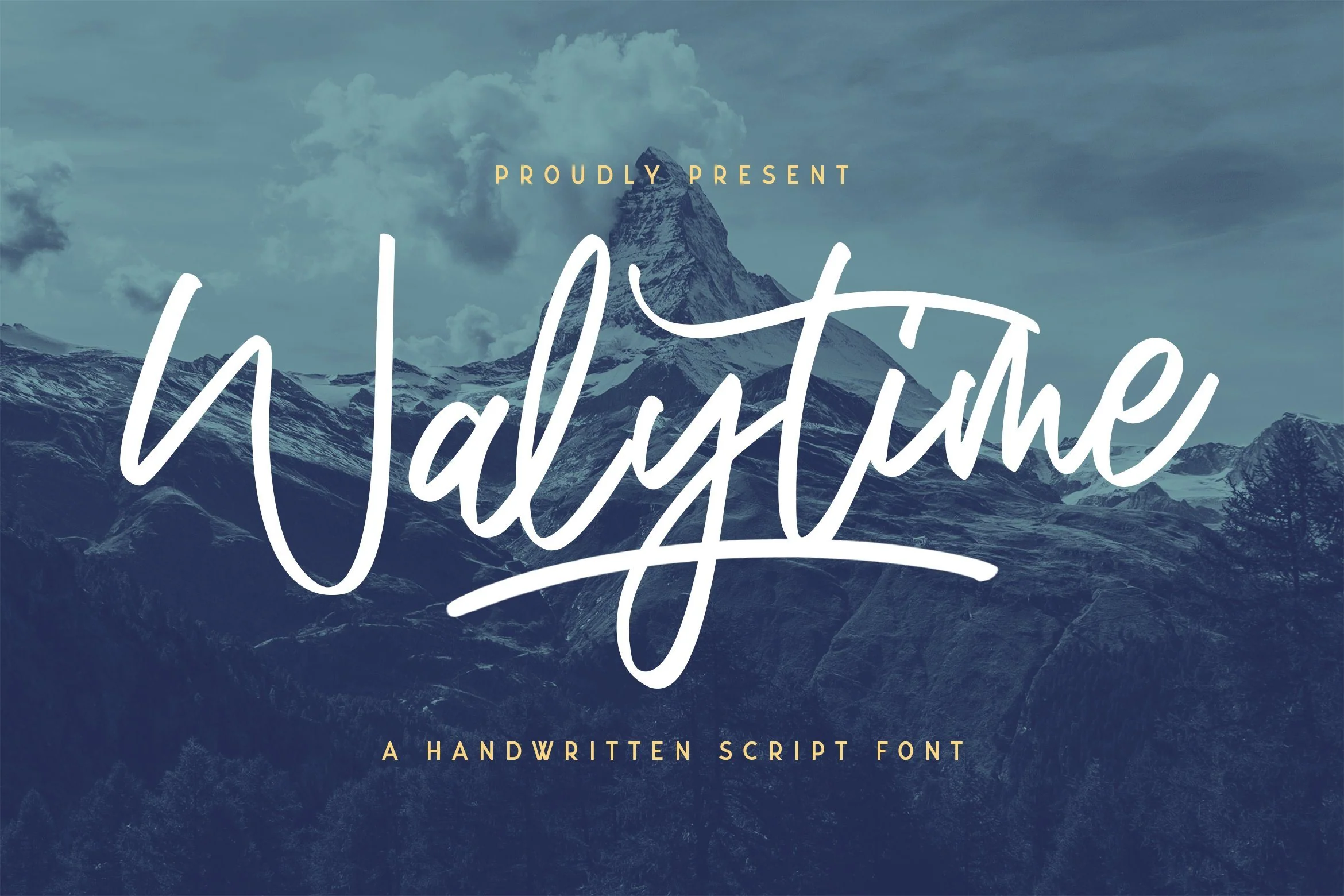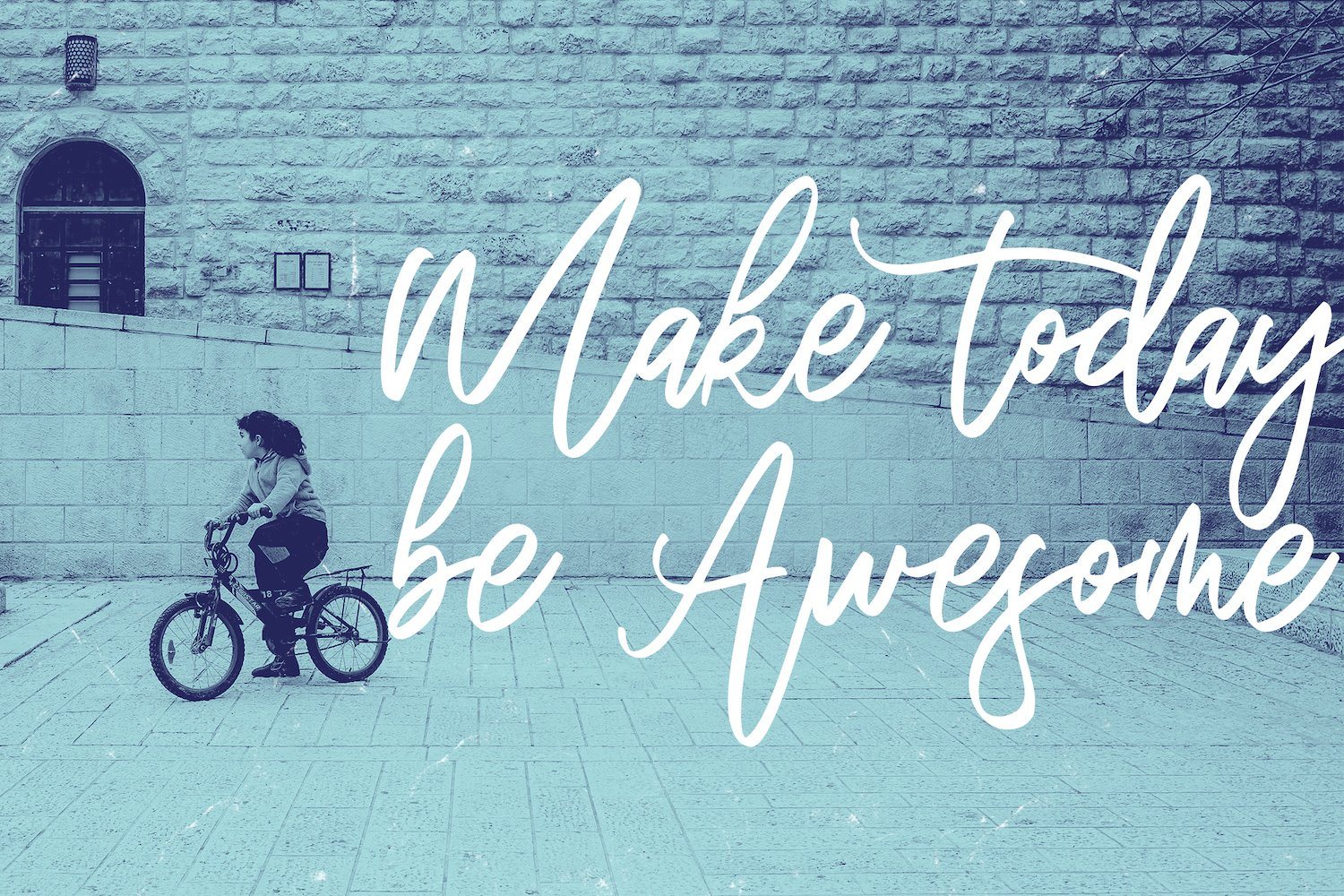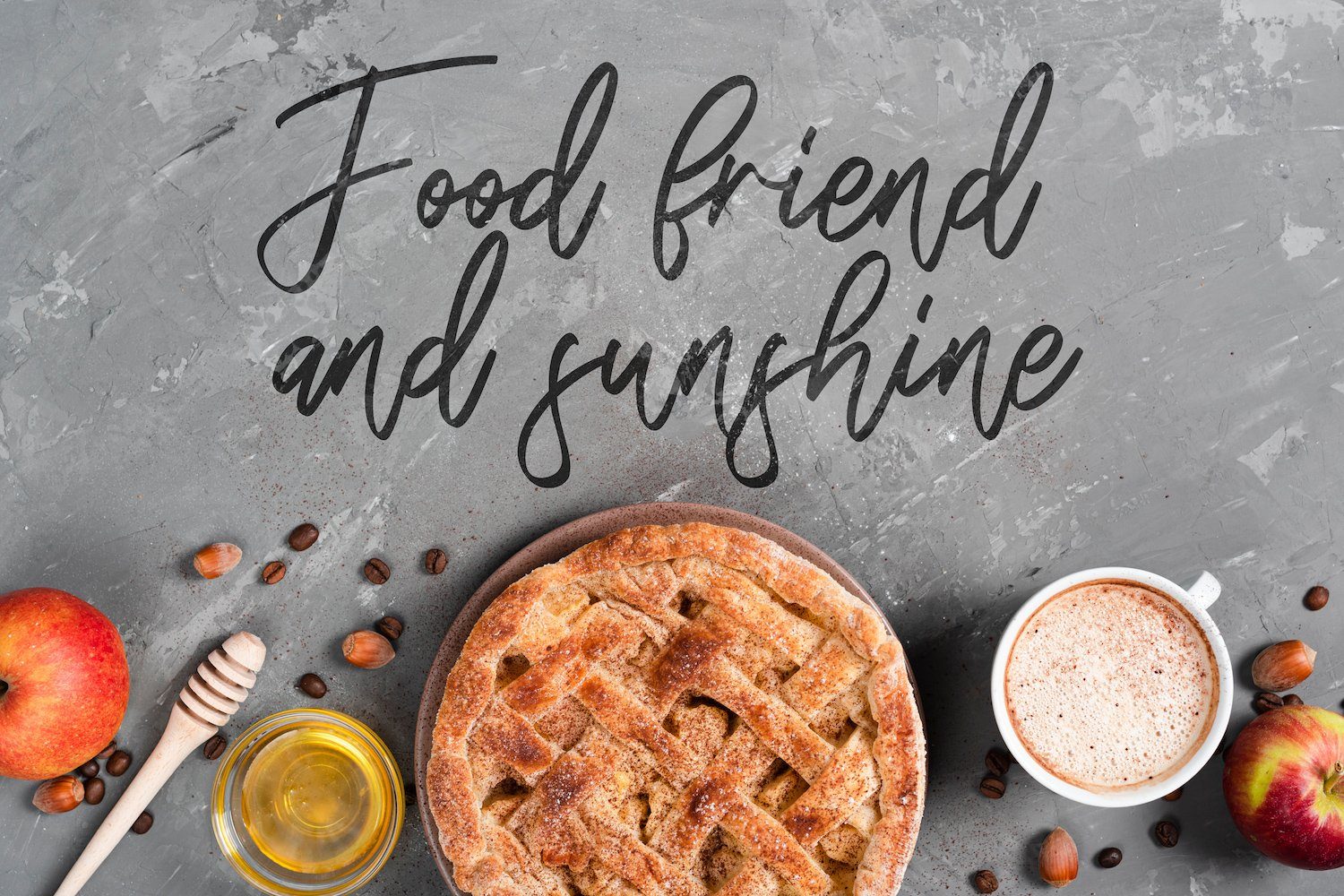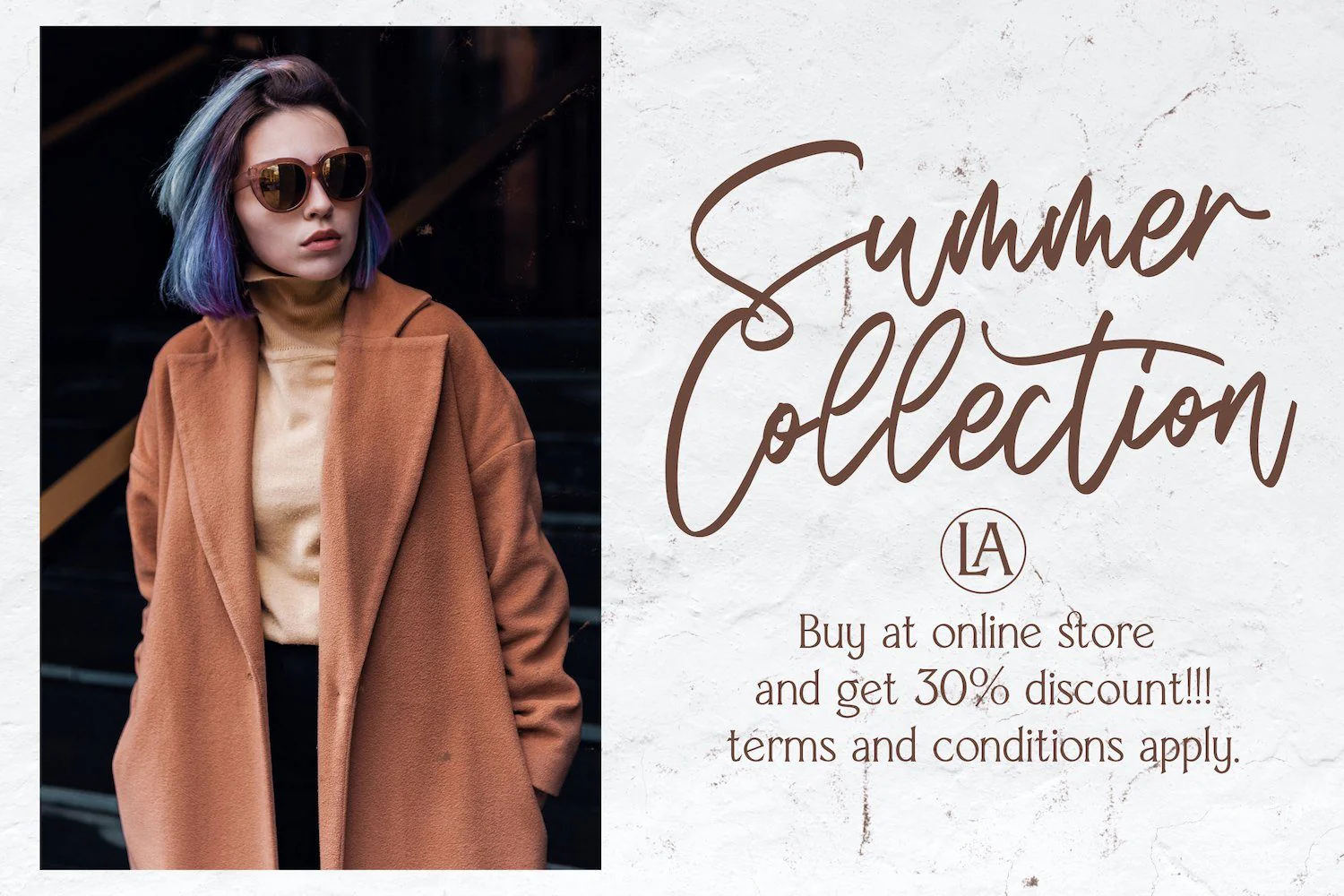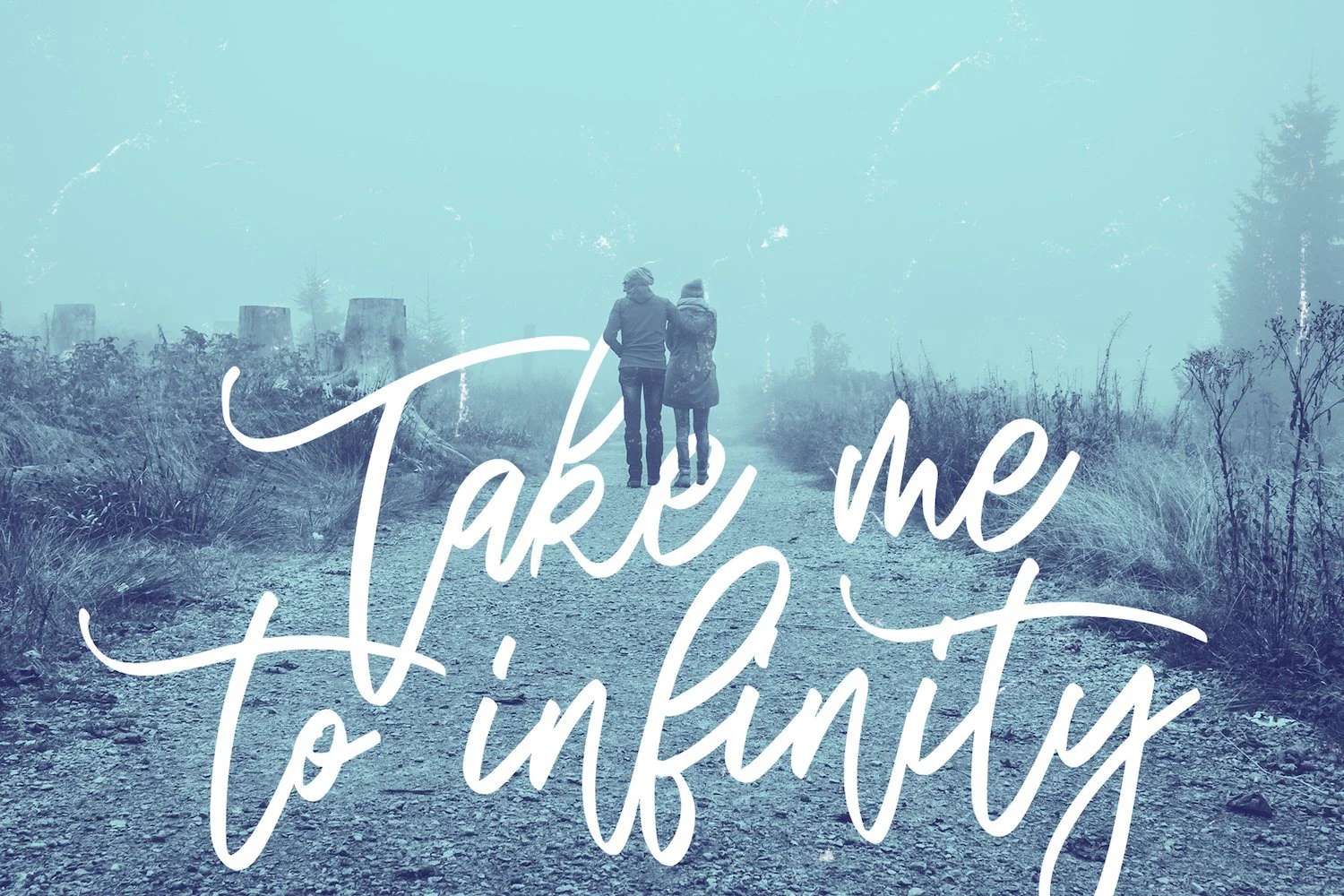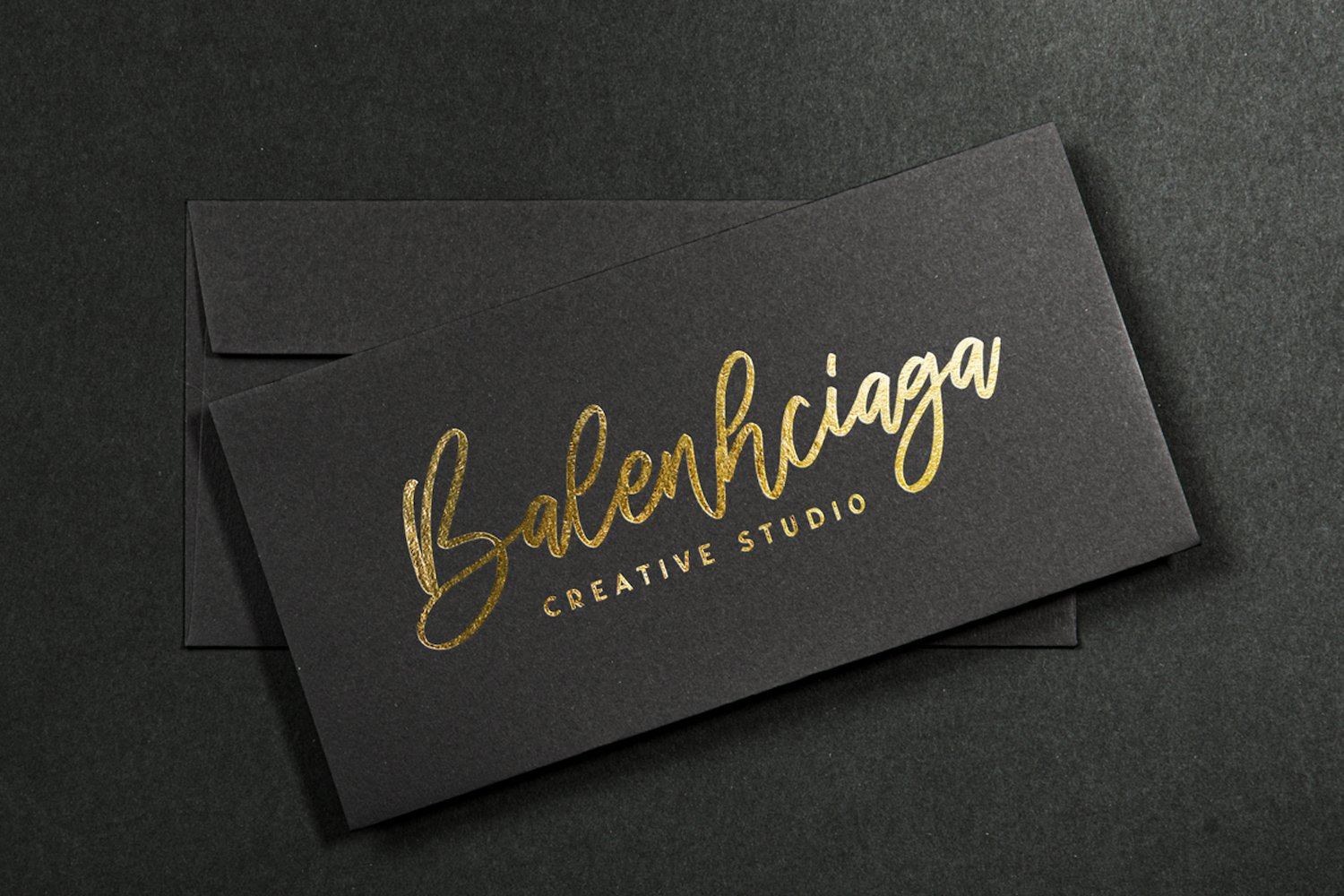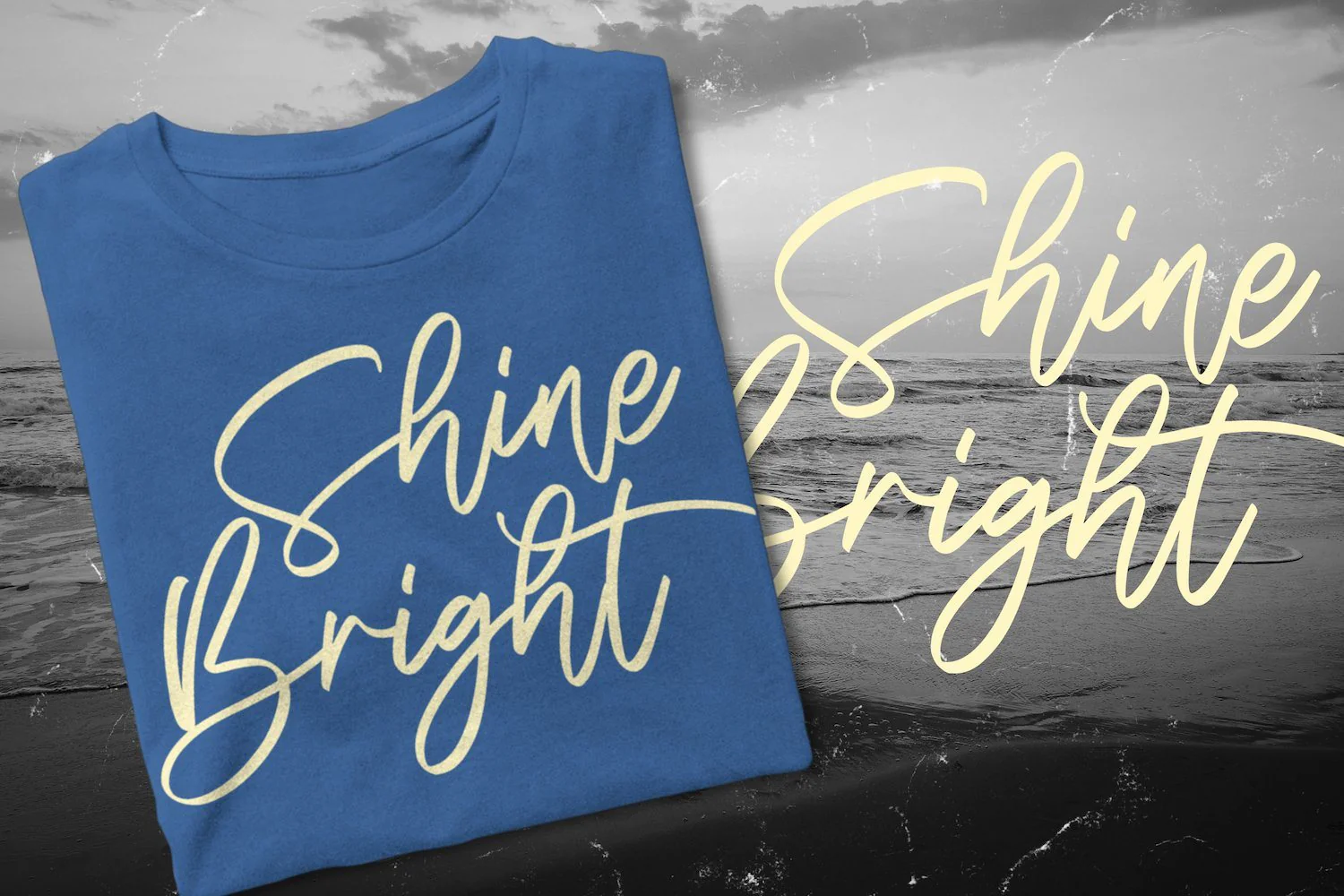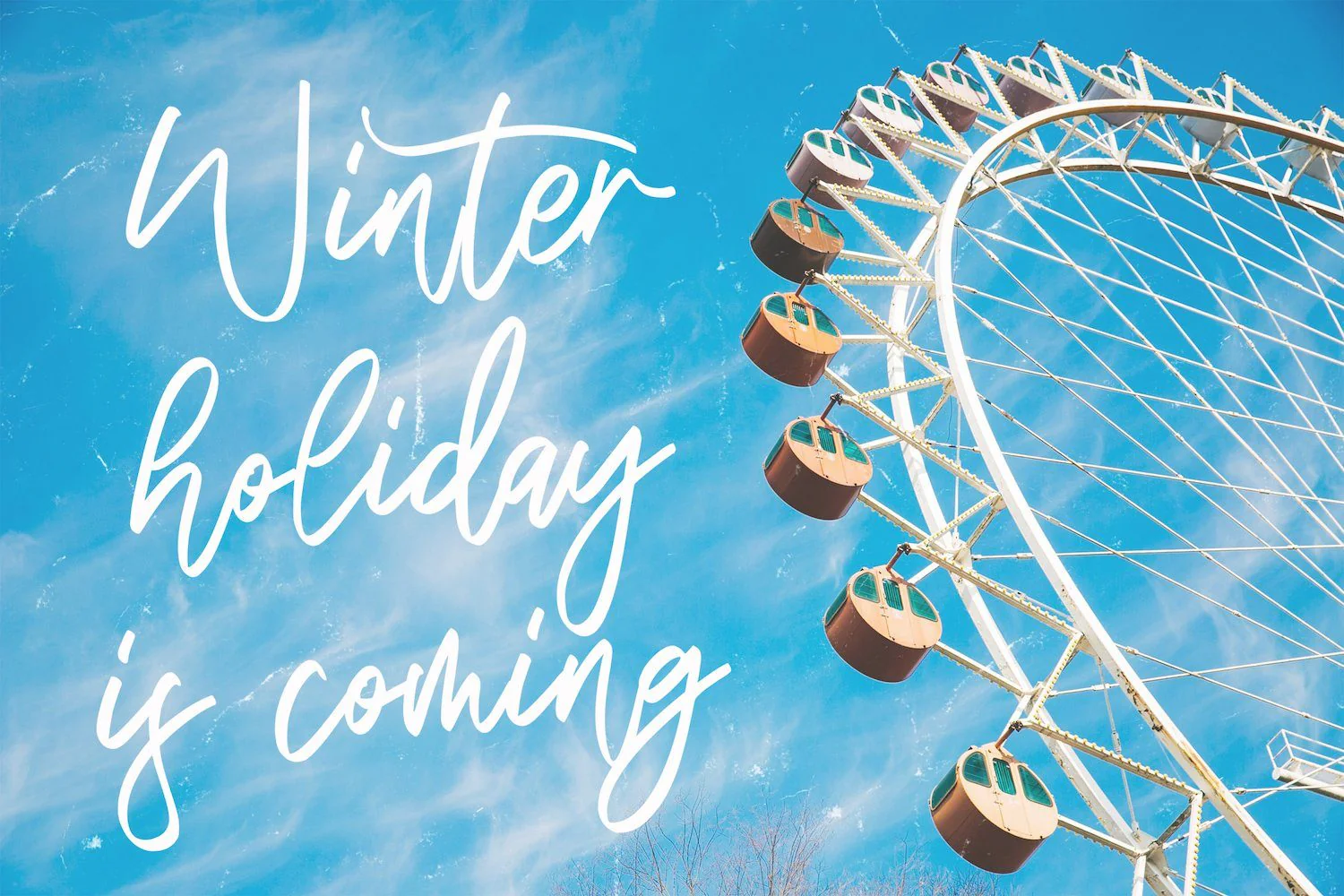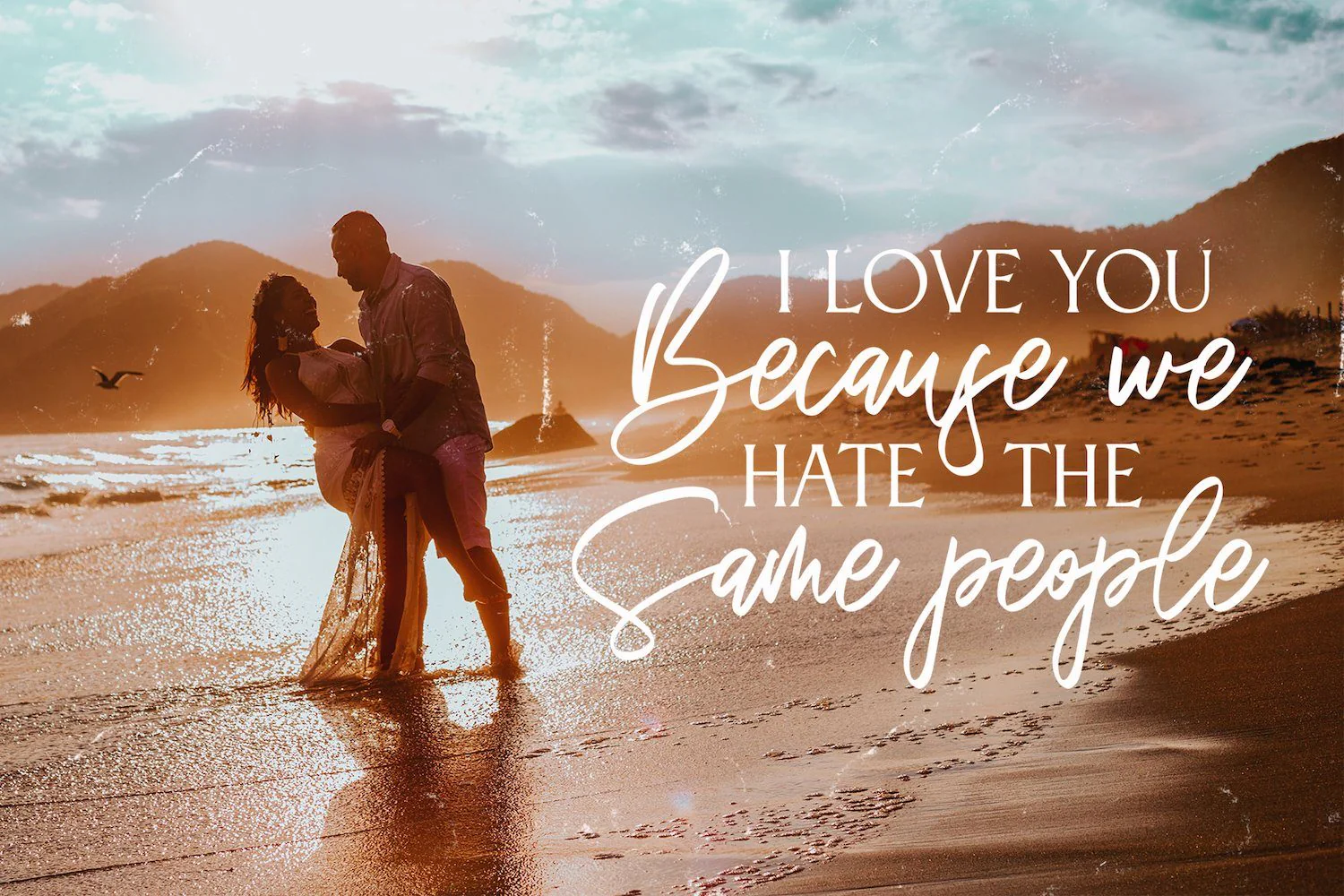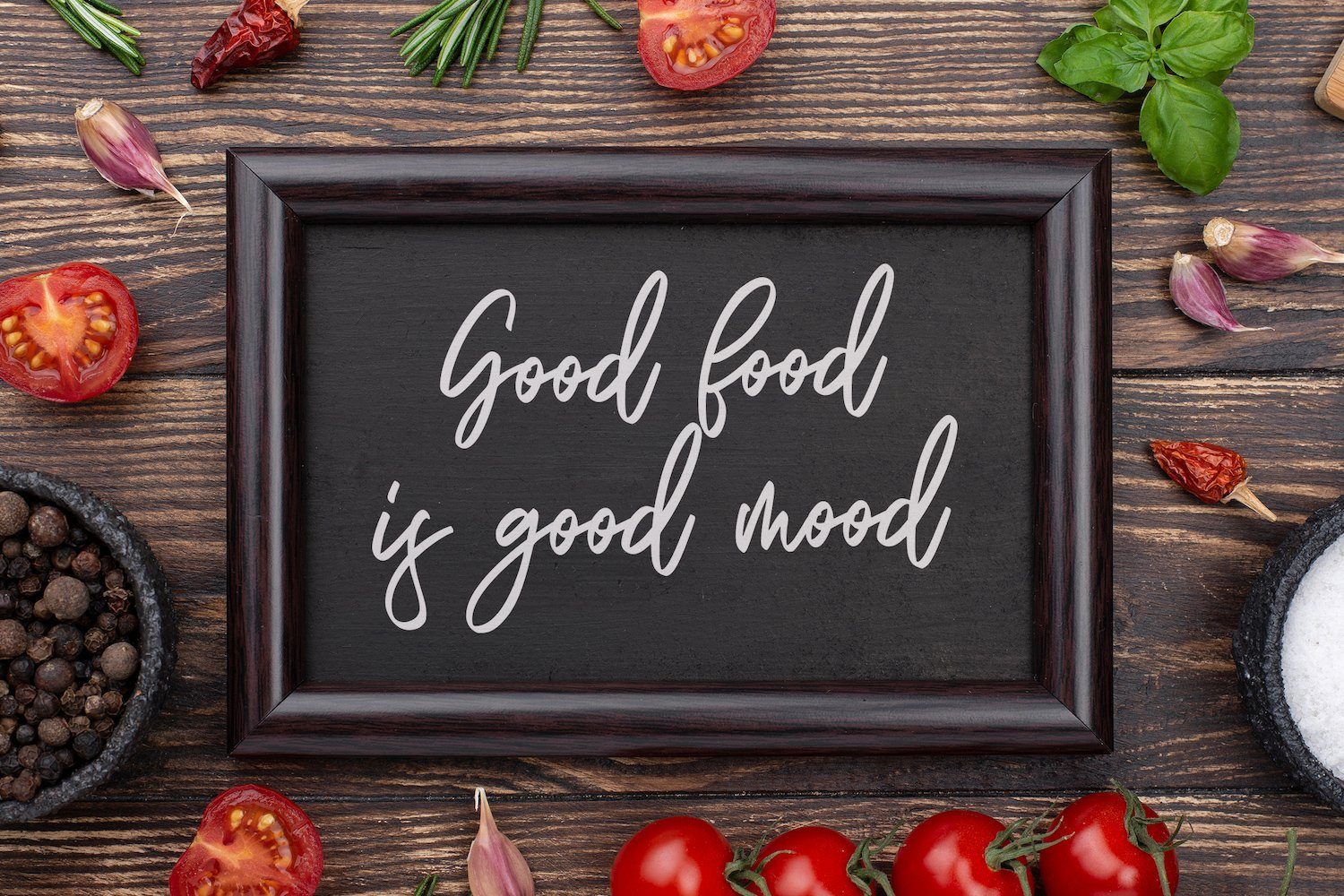
Walytime - Handwritten Font
Introducing Walytime - Handwritten Font
Walytime is a relaxed and timeless handwritten font. Fall in love with its incredibly versatile style and use it to create gorgeous wedding invitations, beautiful stationary art, eye-catching social media posts, and much more!
Introducing Walytime - Handwritten Font
Walytime is a relaxed and timeless handwritten font. Fall in love with its incredibly versatile style and use it to create gorgeous wedding invitations, beautiful stationary art, eye-catching social media posts, and much more!